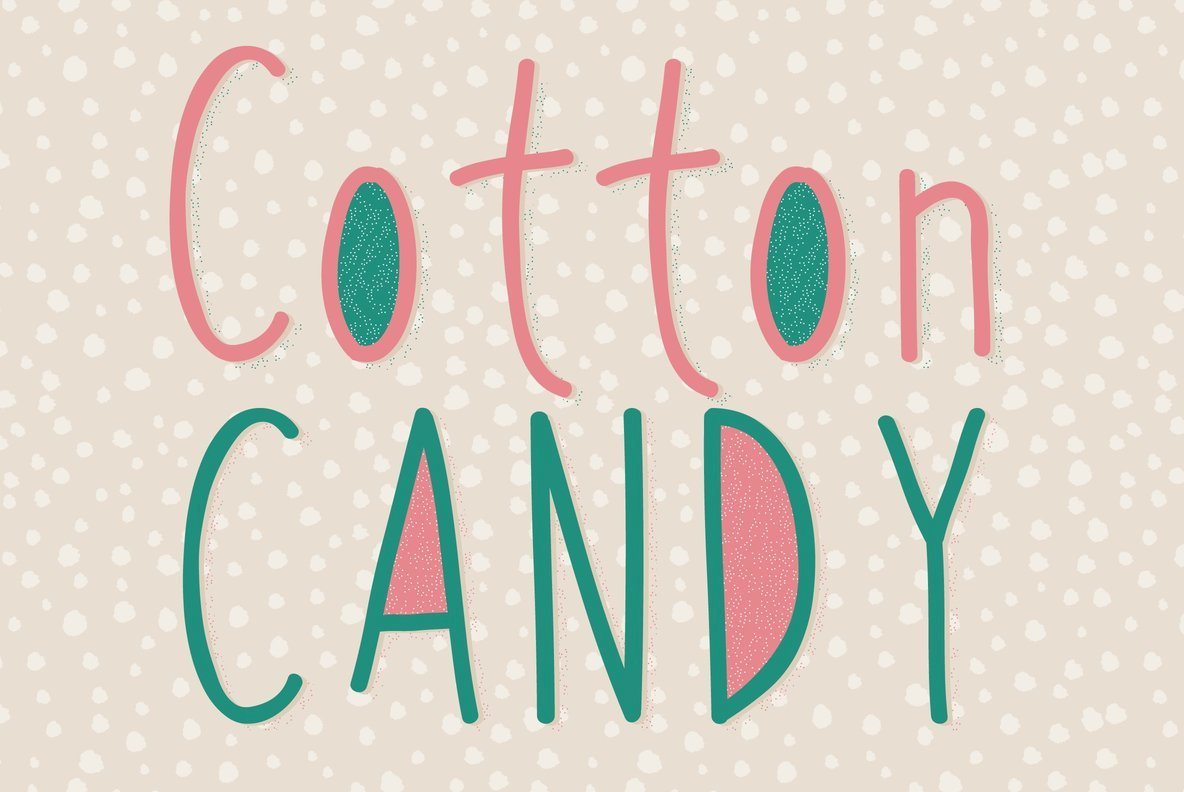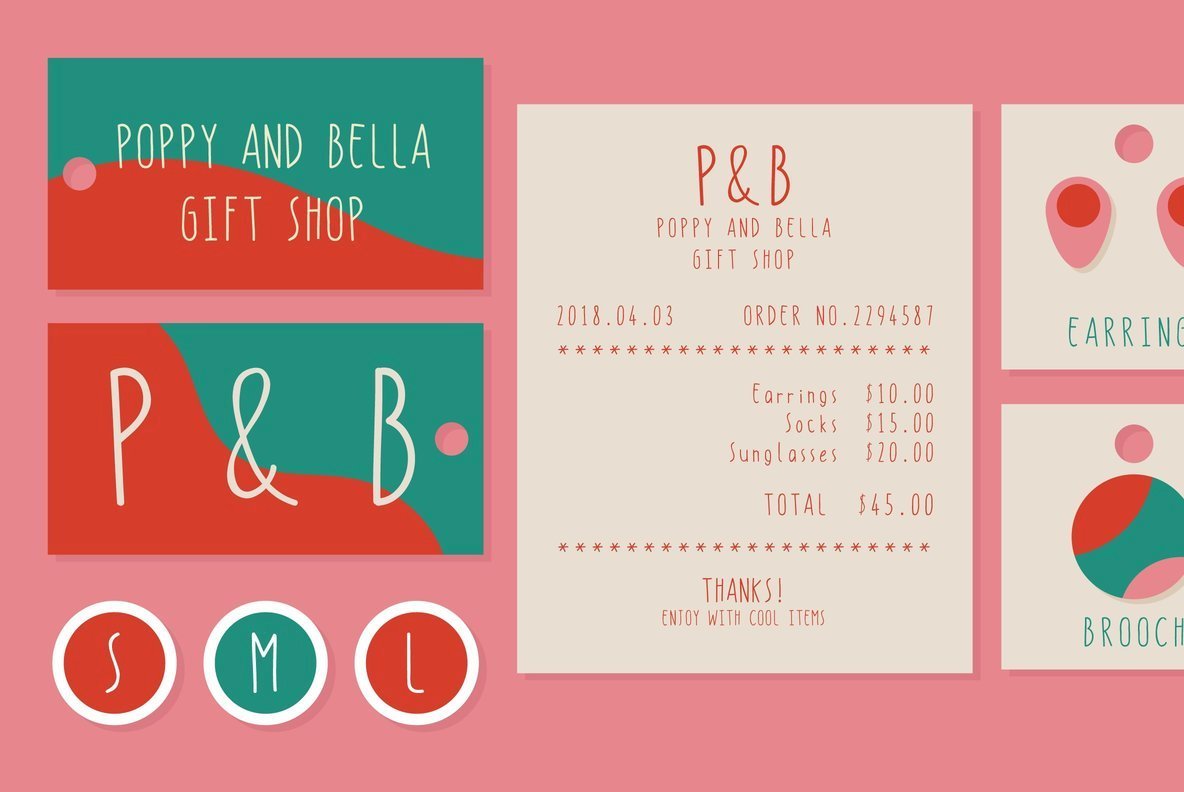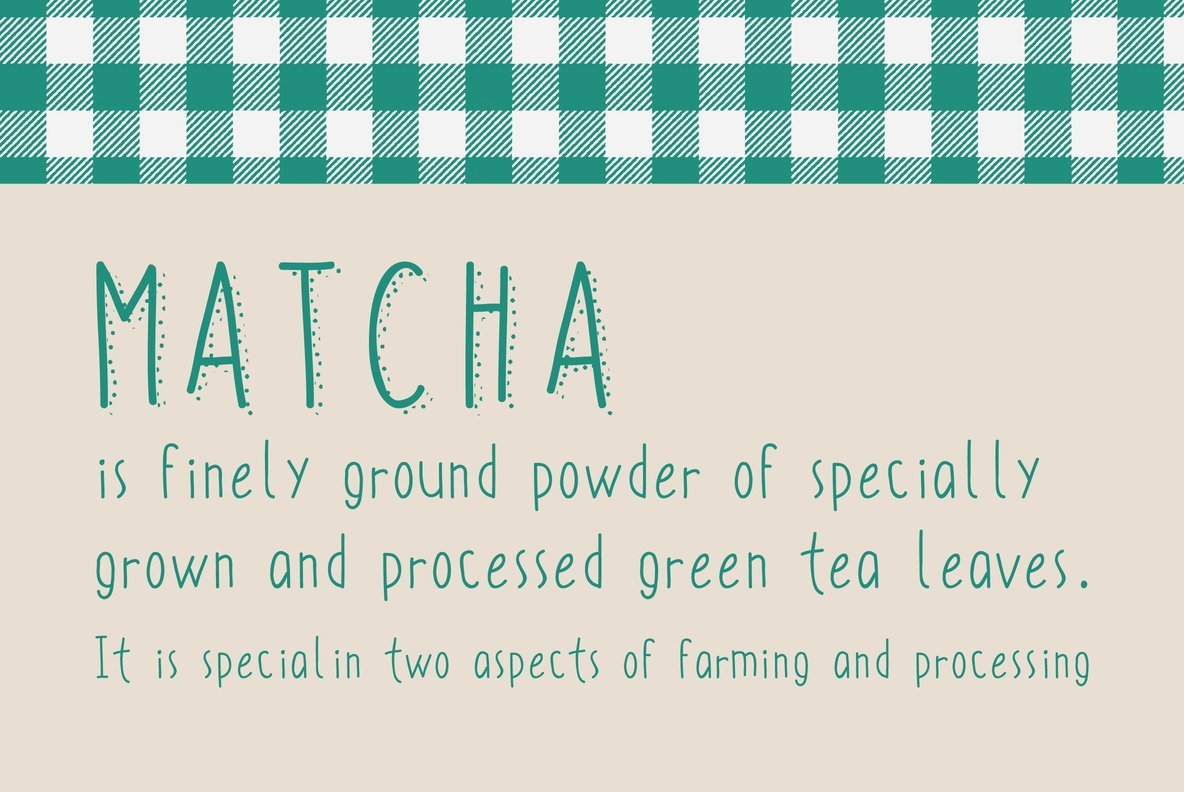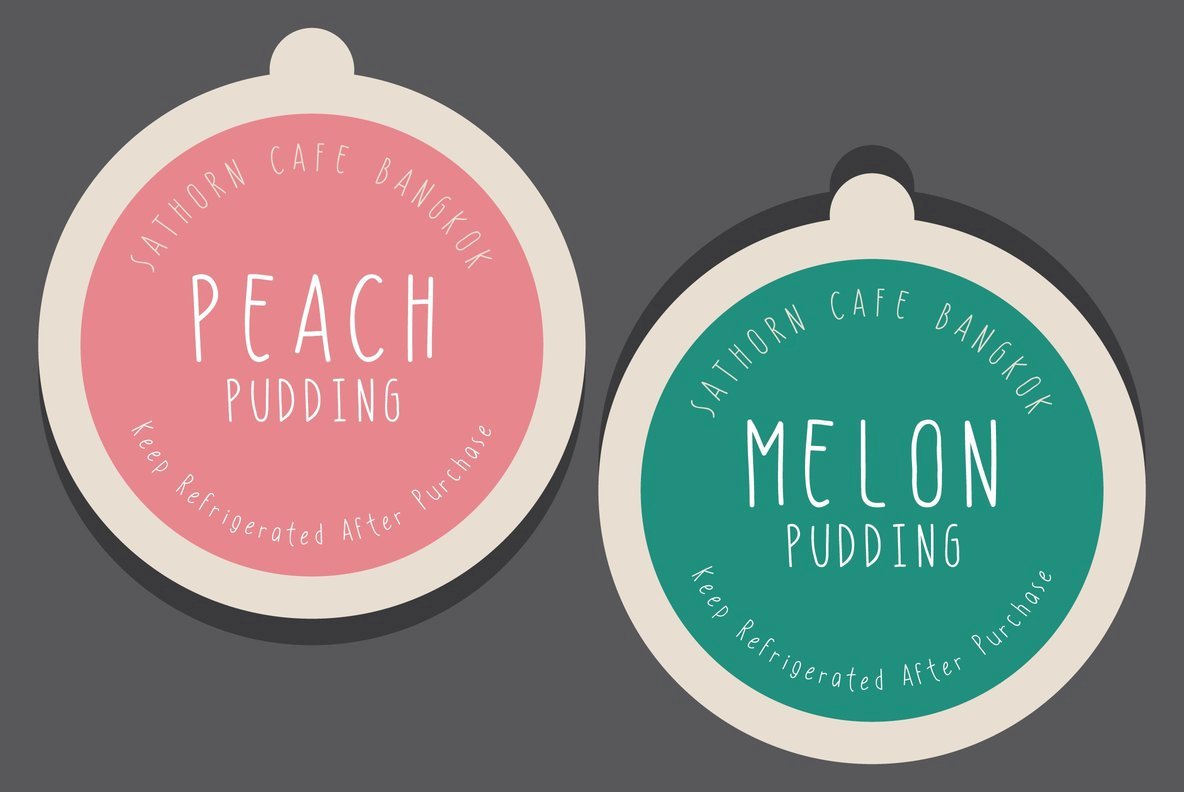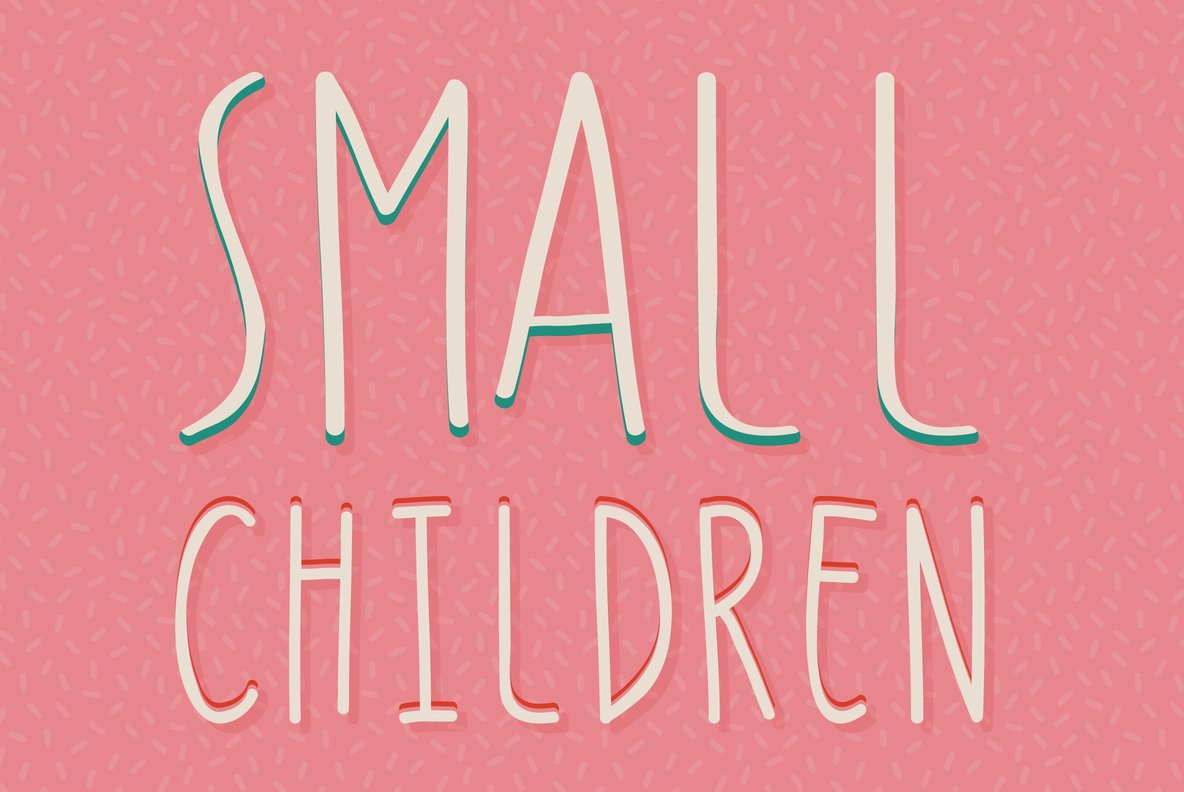
Hello Kitsy Font
Hello Kitsy
Hello Kitsy offers a playfulness that complements its modern sensibilities, making it a versatile choice for various design projects. Whether you're crafting typography layouts, wedding invitations, or logos, this handwritten sans serif brings a lively touch to your creations.Hello Kitsy: A Fun and Modern Handwritten Sans Serif